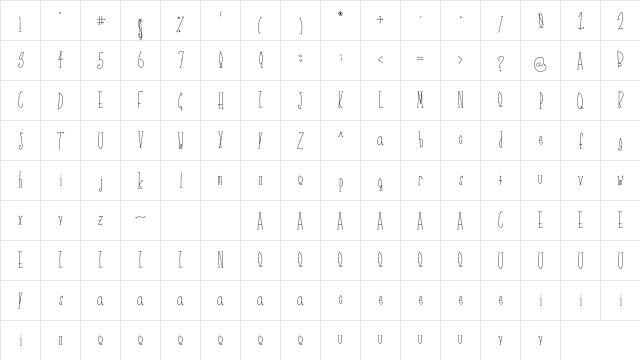
Del Poha Regular
Design Context for Del Poha Typeface
Del Poha takes a measured approach to typography — its balanced proportions and neutral character make it a reliable workhorse for both digital and print work.